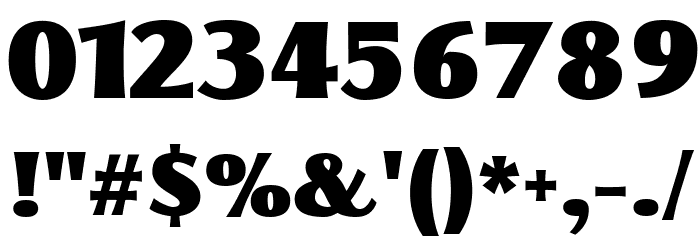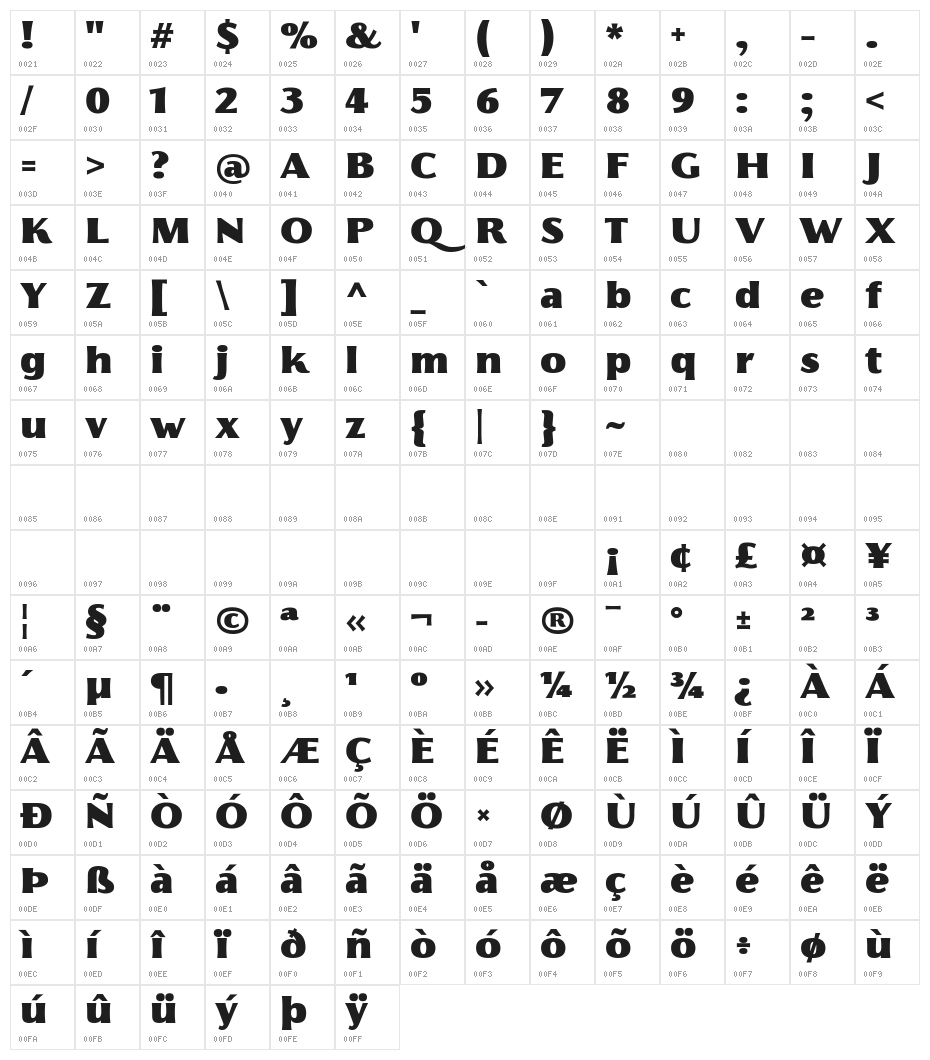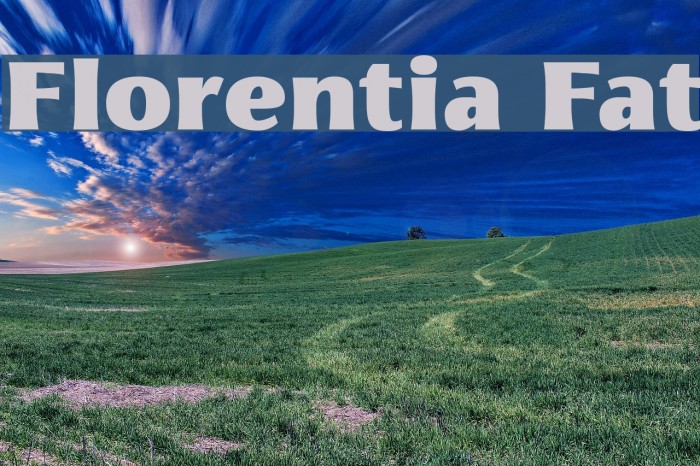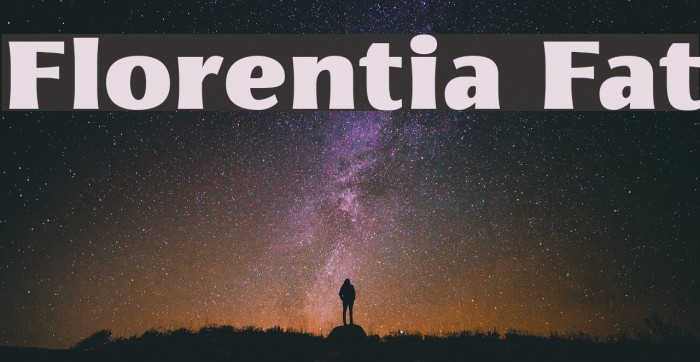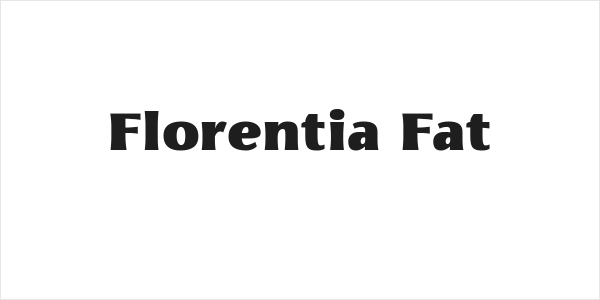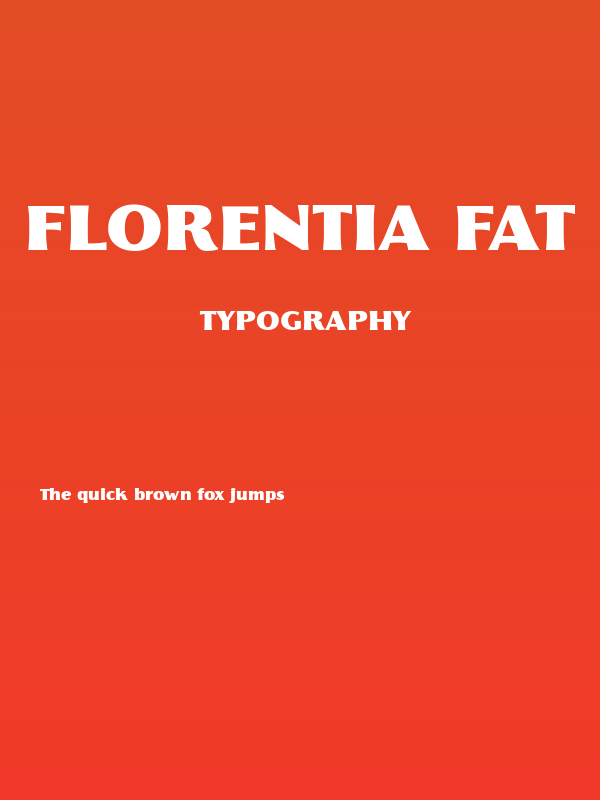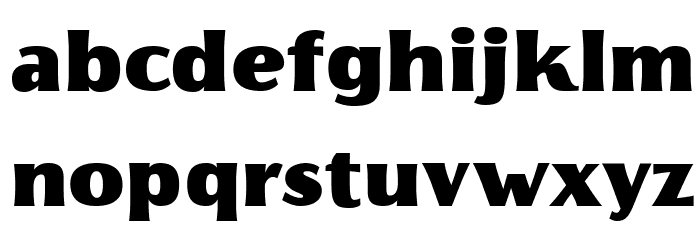
Florentia Fat Font
Florentia Fat Description
This font features a bold and robust design with a strong presence, characterized by thick strokes and a slightly condensed form. The uppercase letters exhibit a classic serif style with a modern twist, while the lowercase letters maintain a consistent weight, providing a harmonious balance. The numerals are clear and legible, matching the overall boldness of the font. Special characters are designed with the same attention to detail, ensuring versatility across various applications. The font's high contrast in stroke thickness adds to its striking appearance, making it suitable for impactful headlines and branding.
| Proposed Projects | This font is perfect for branding projects, logo design, magazine covers, and any application requiring a strong visual impact. |